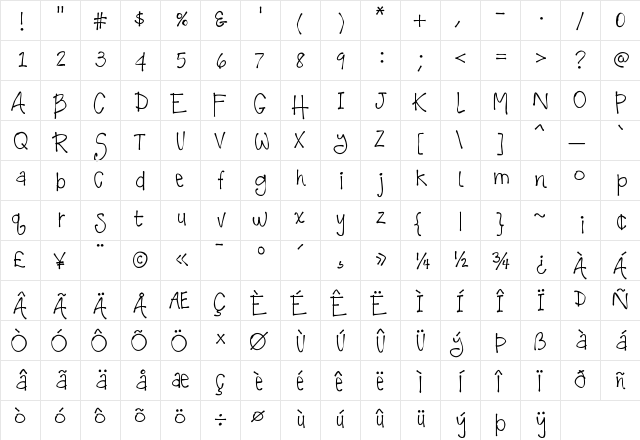
K26CastleRose Medium
Design Context for K26CastleRose Typeface
K26CastleRose is a composed and adaptable typeface that performs quietly and consistently across a wide range of design contexts.